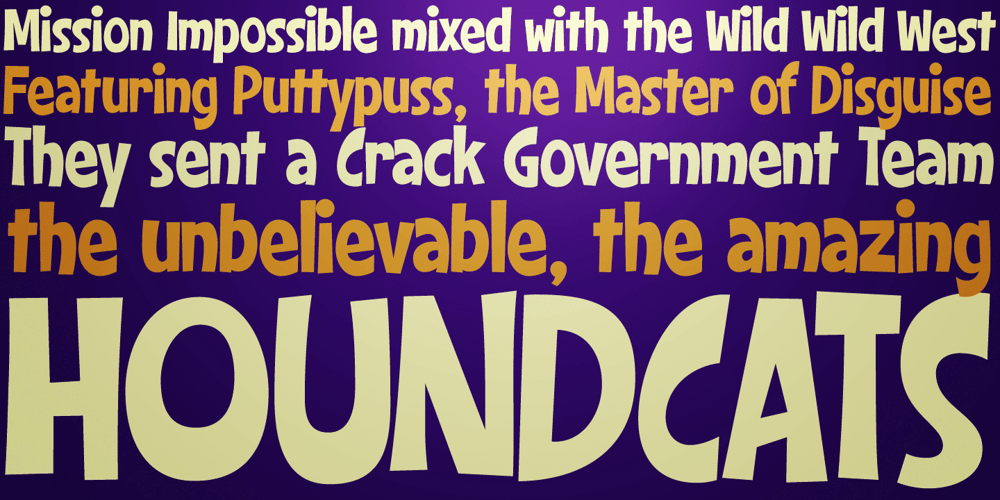
Houndcats PB
Houndcats PB font
Houndcats PB Font Family was designed by Phil Bracco and published by Pink Broccoli. Houndcats PB contains 1 styles and family package options. A light hearted comic sans-serif typeface inspired by a 1972 cartoon of the same name, Houndcats works with all it’s got to convey a funky, friendly, fantastic persona. A little bit off the chain, yet still easily legible, this typographic nutcase is ready and waiting for you to go wild with it!